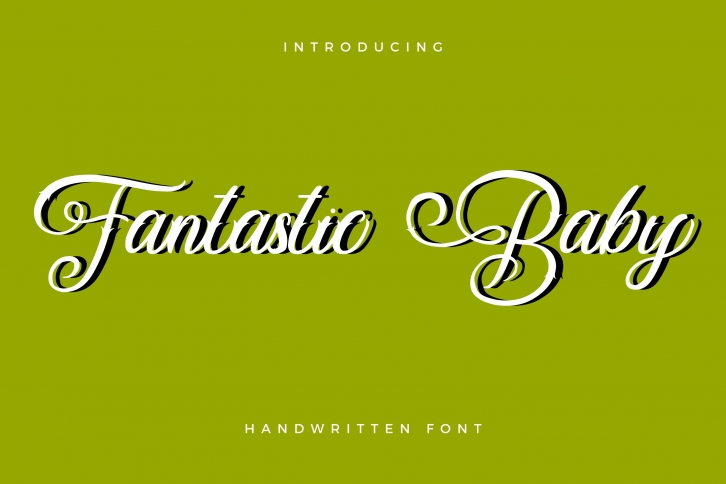
Fantastic Baby is a delicate, elegant and flowing handwritten font. It has beautiful and well balanced characters and as a result, it matches a wide pool of designs. This font is PUA encoded which means you can access all of the glyphs and swashes with ease.